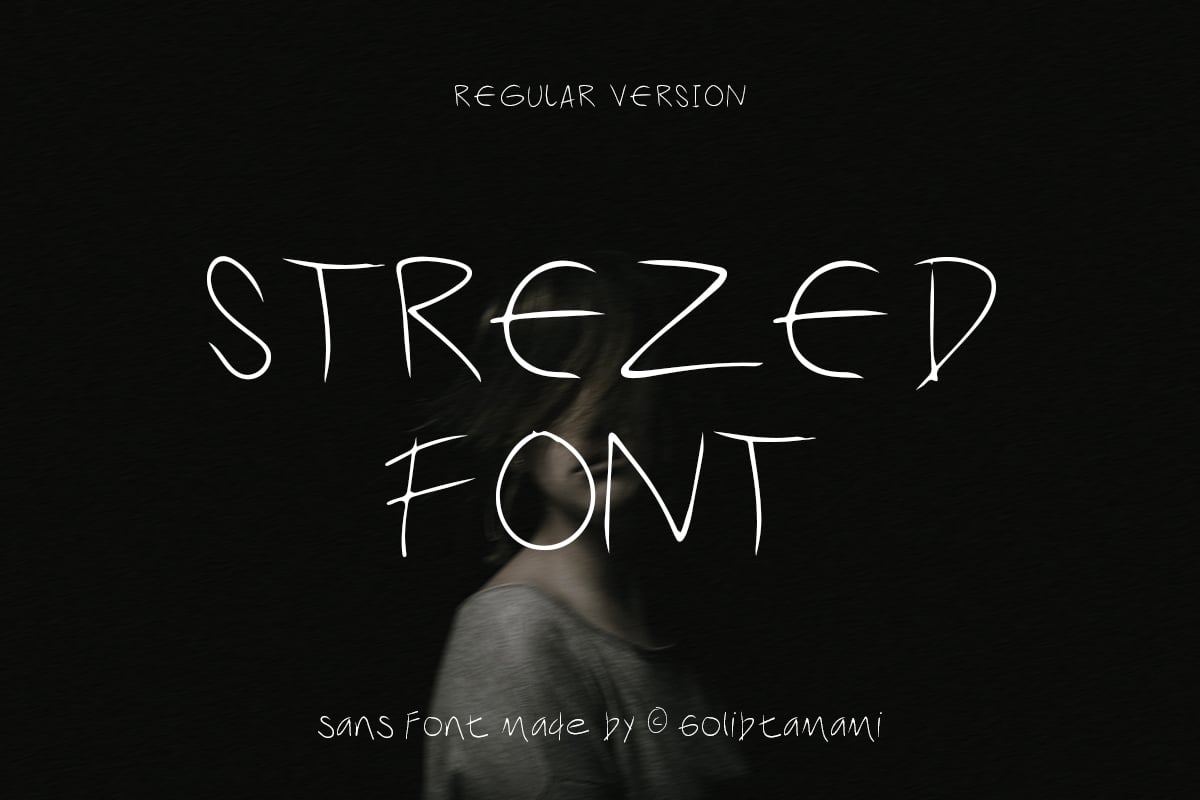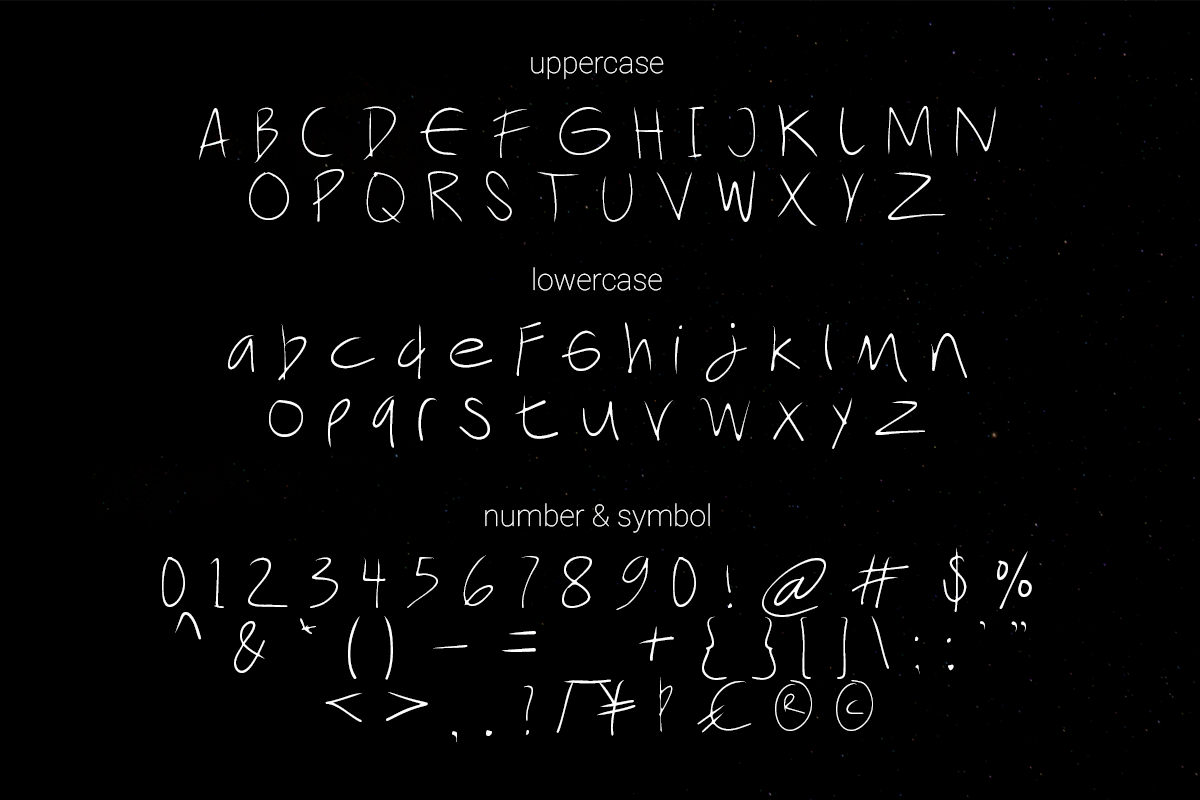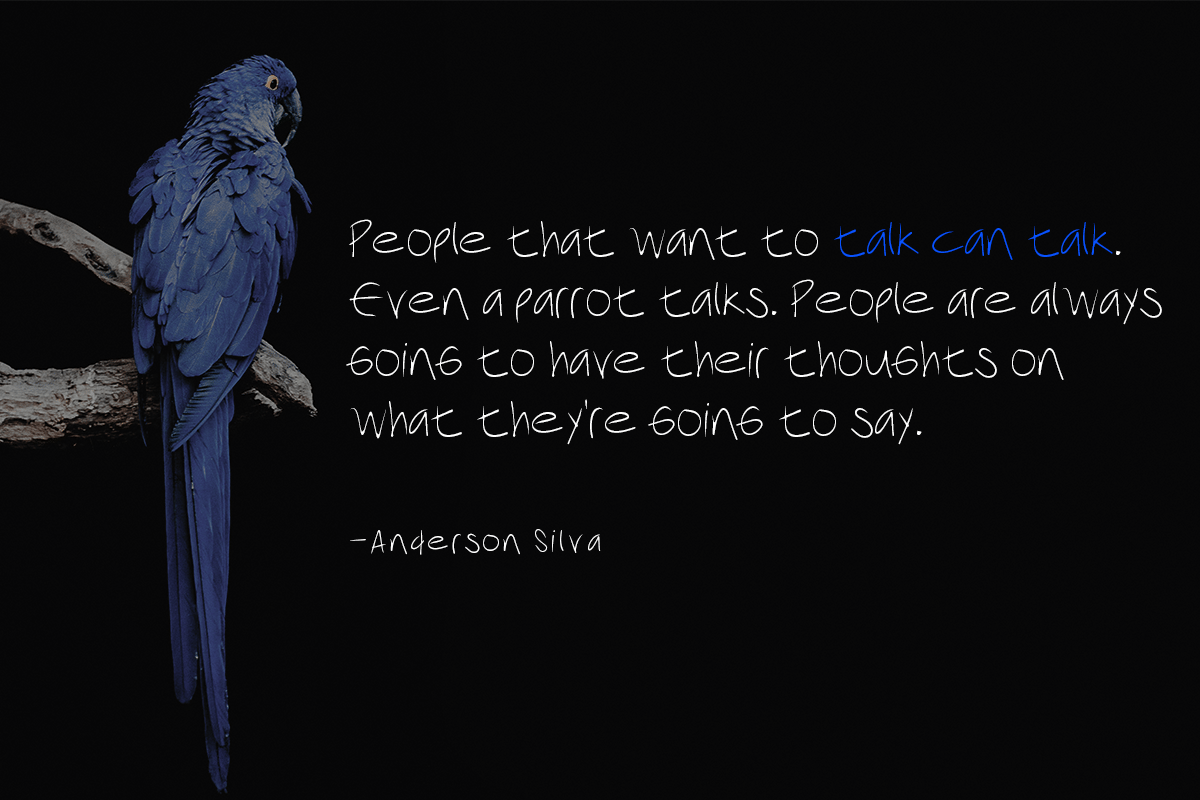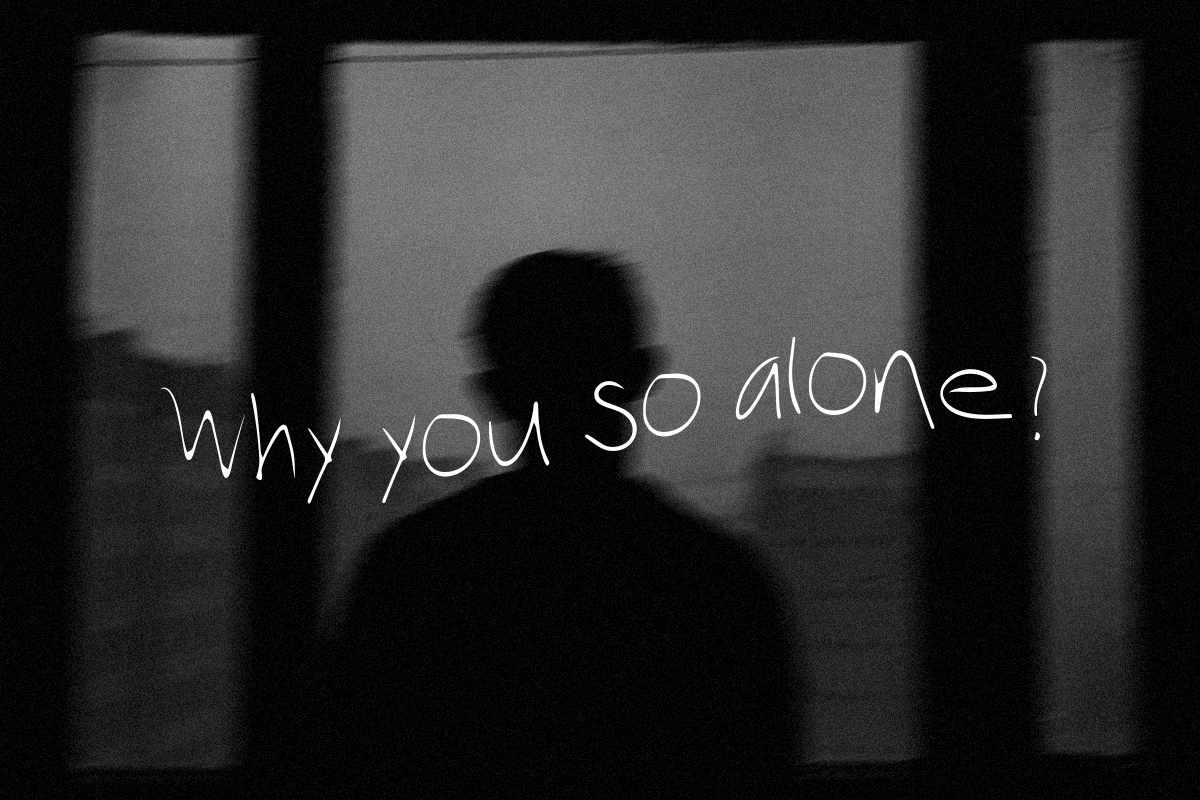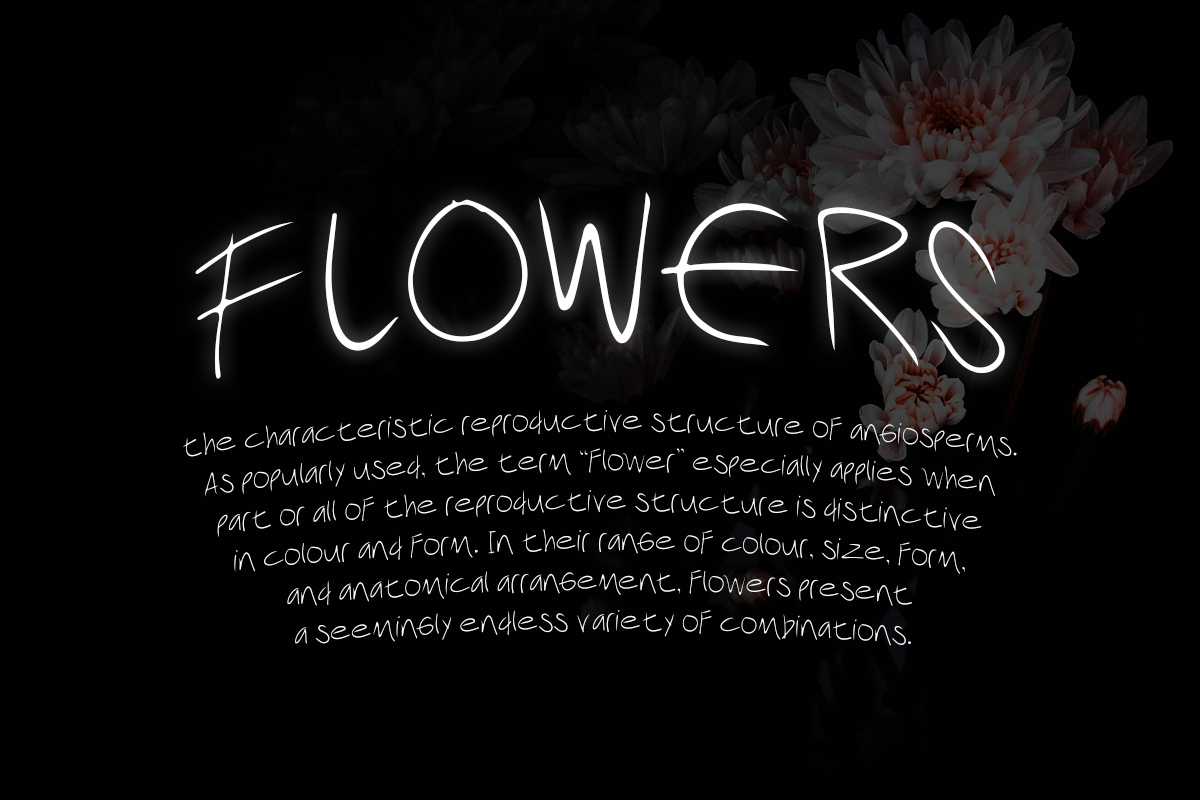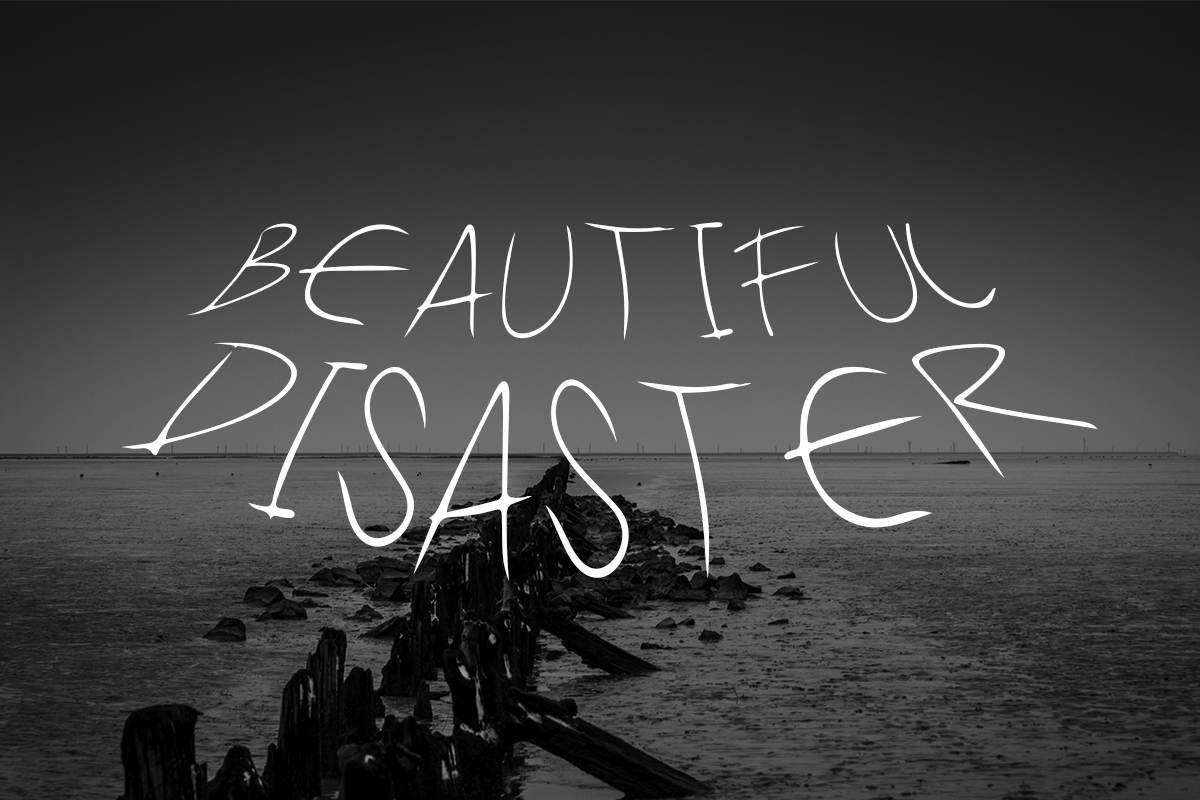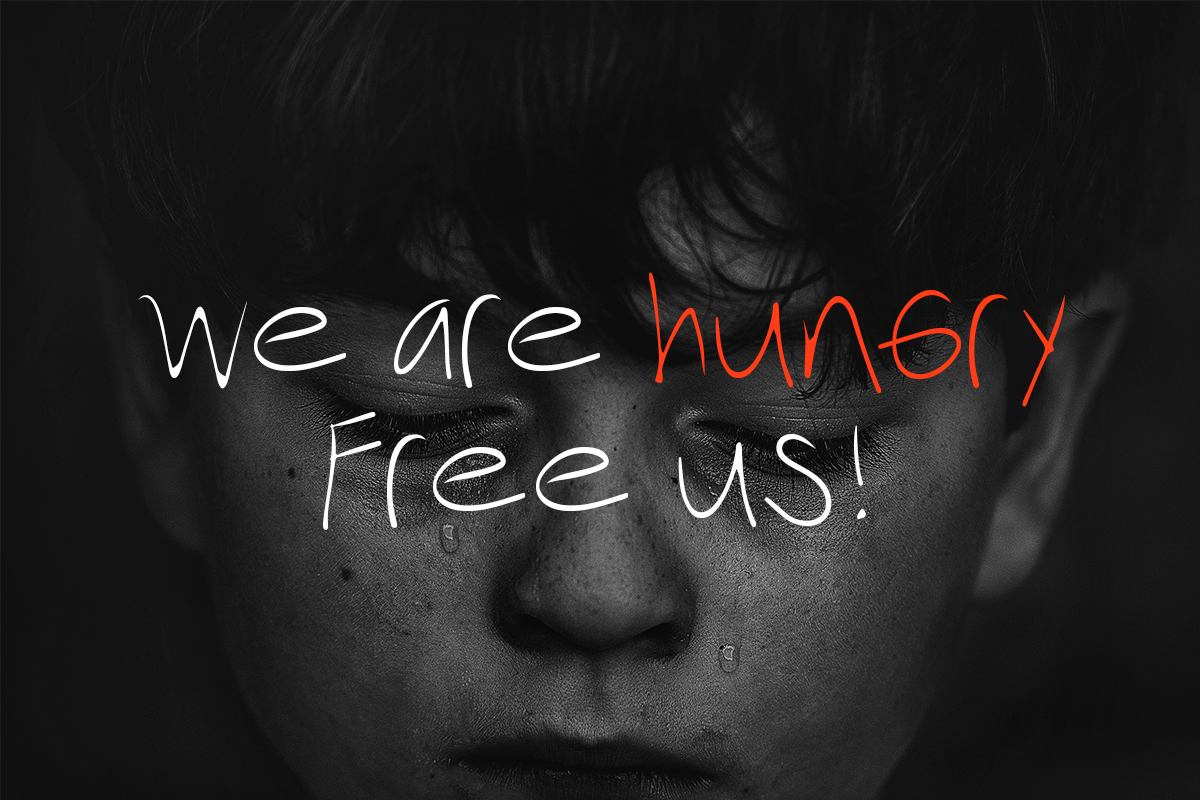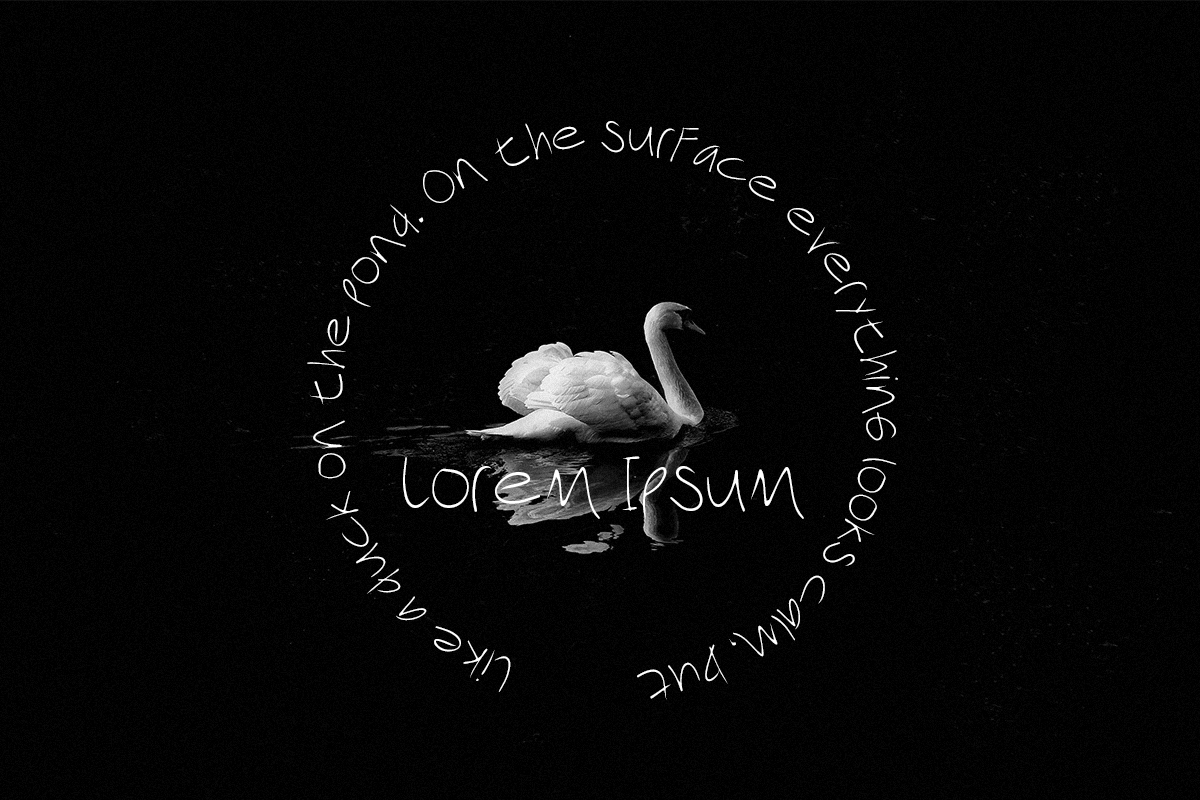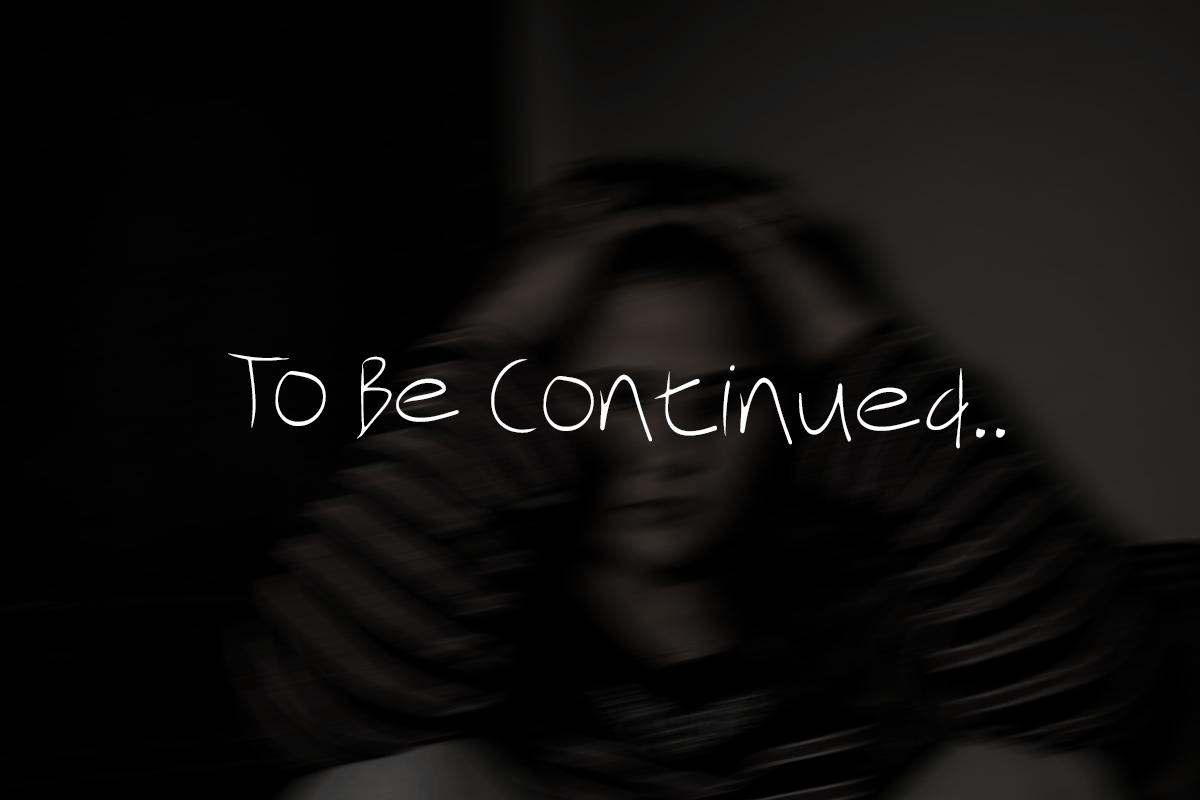
Strezed – Ugly Font
This font is for anyone who wants to give a touch of pain and horror to their project. This handwritten font is suitable for display use, titles, and some designs with the theme of sadness, fatigue, or anything alike.